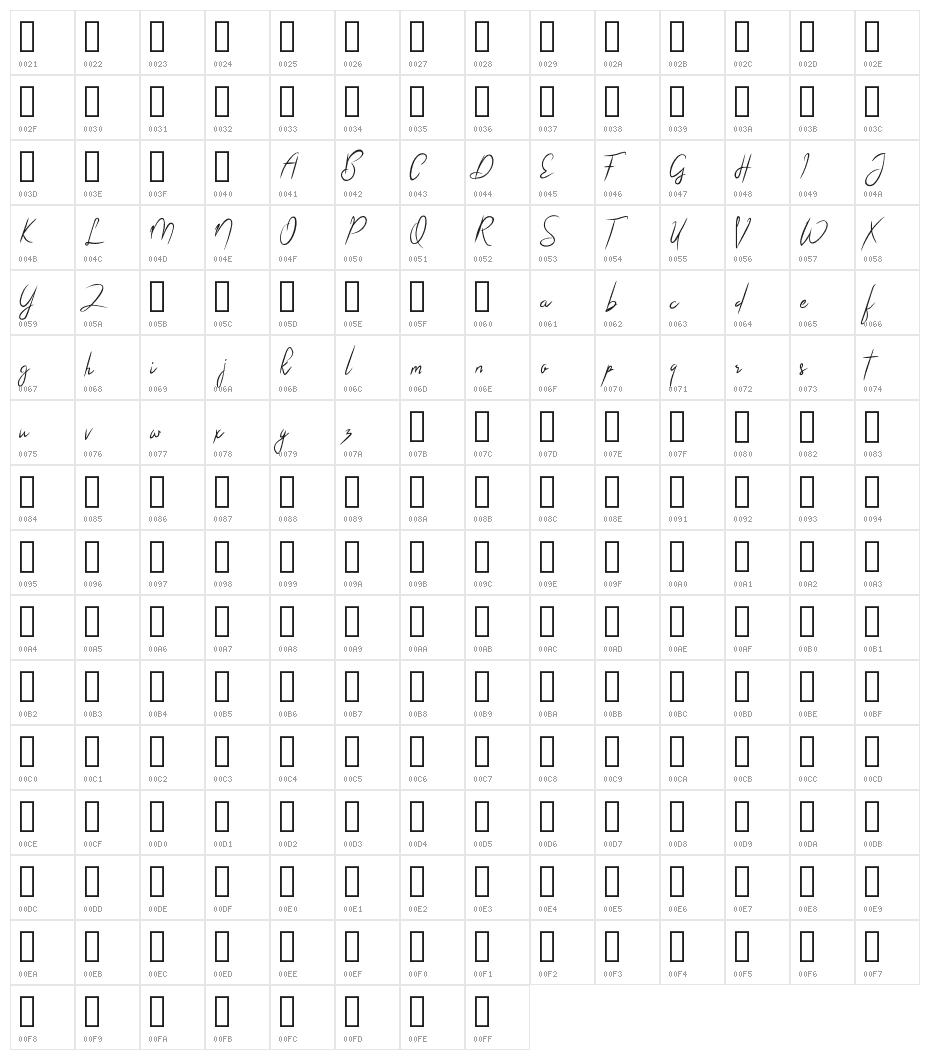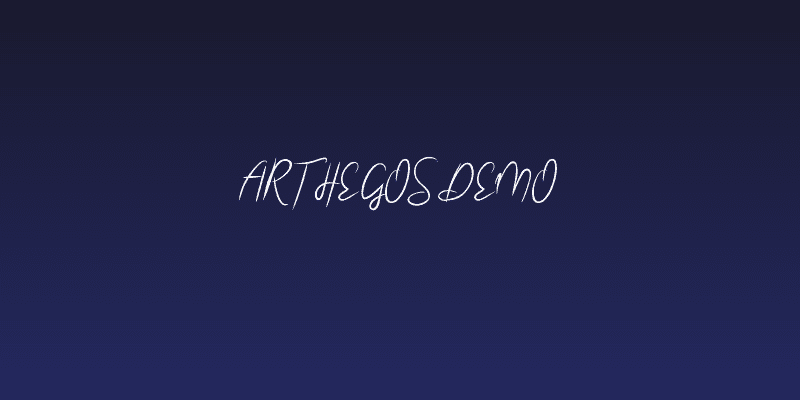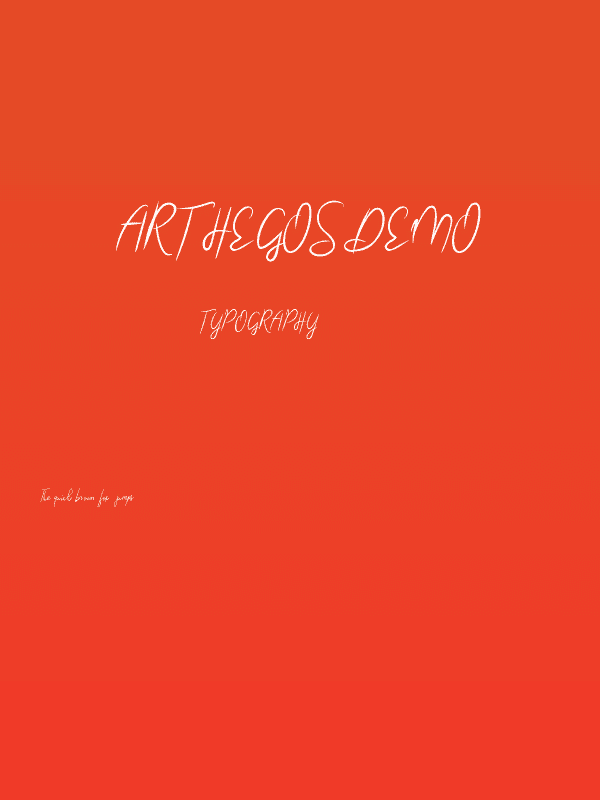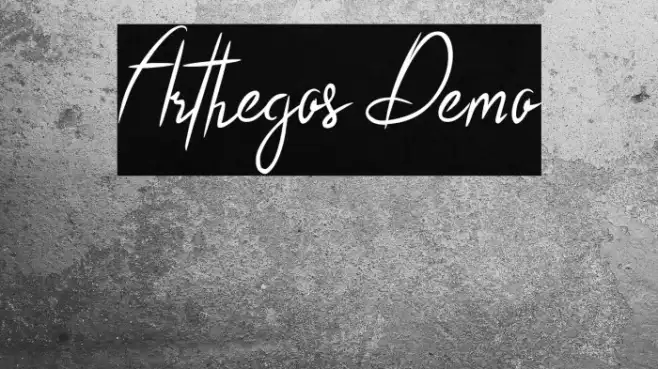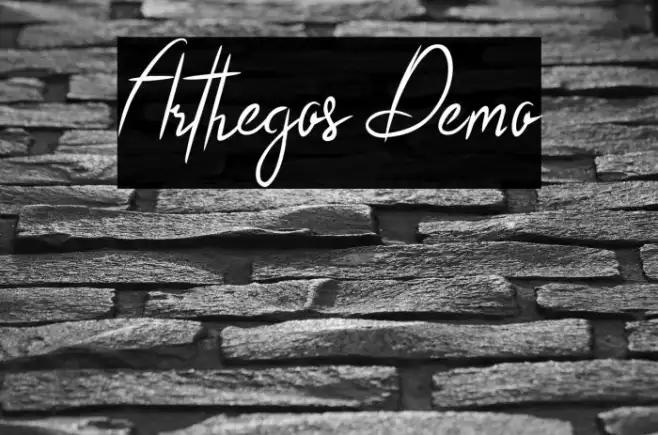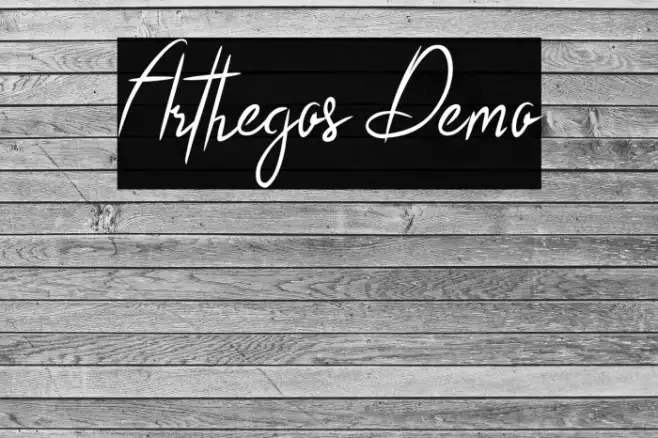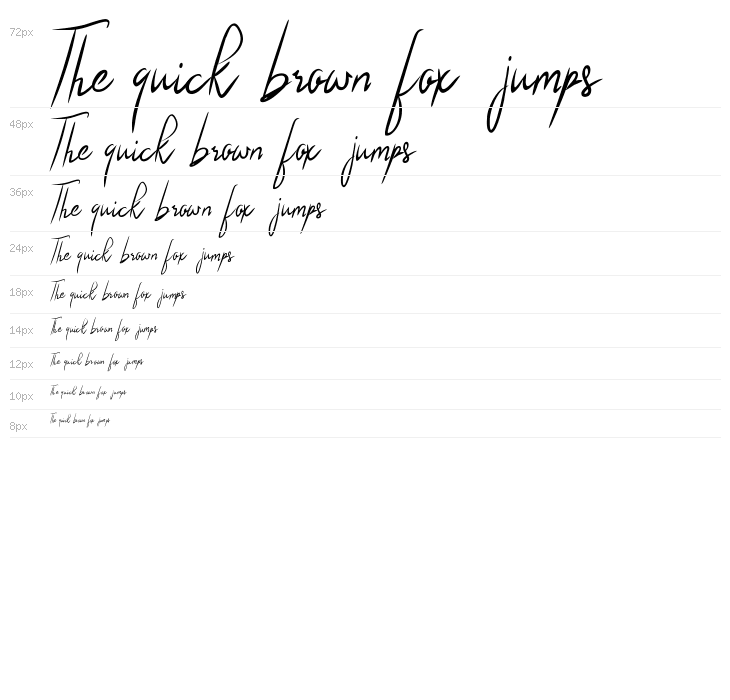
Arthegos Demo Font
Arthegos Demo Description
This font features an elegant and flowing script style, characterized by its smooth, cursive strokes and a sense of fluidity. The uppercase letters are tall and slightly slanted, giving a sense of movement and grace. The lowercase letters maintain a consistent flow, with some letters extending below the baseline, adding to the dynamic nature of the font. The overall appearance is sophisticated and artistic, making it suitable for creative and expressive designs. The font's style is reminiscent of handwritten calligraphy, with a modern twist that makes it versatile for various applications.
| Use Case | Logos, Invitations, Artistic designs |